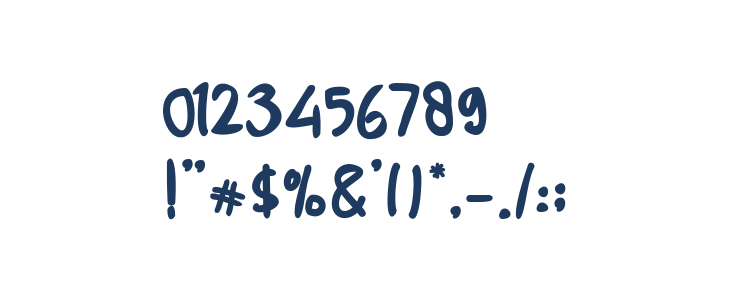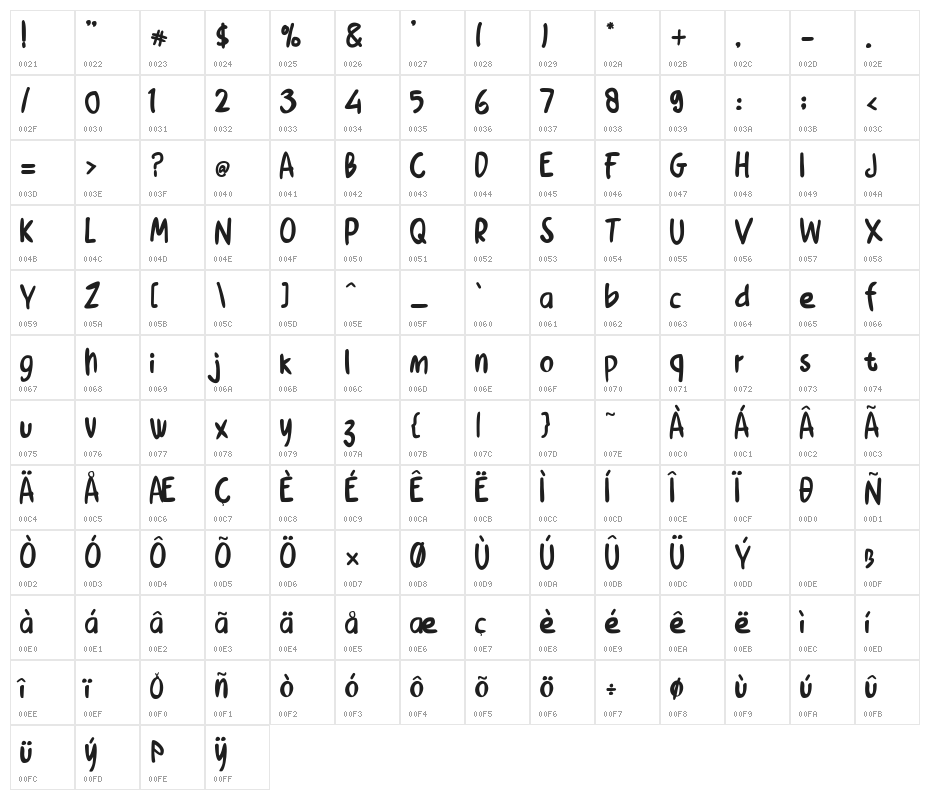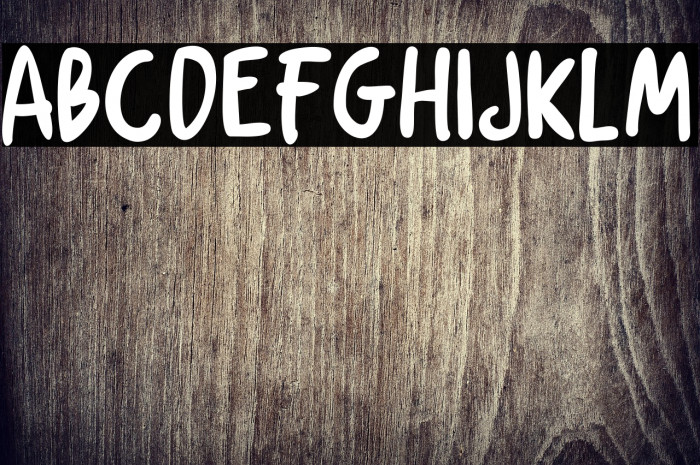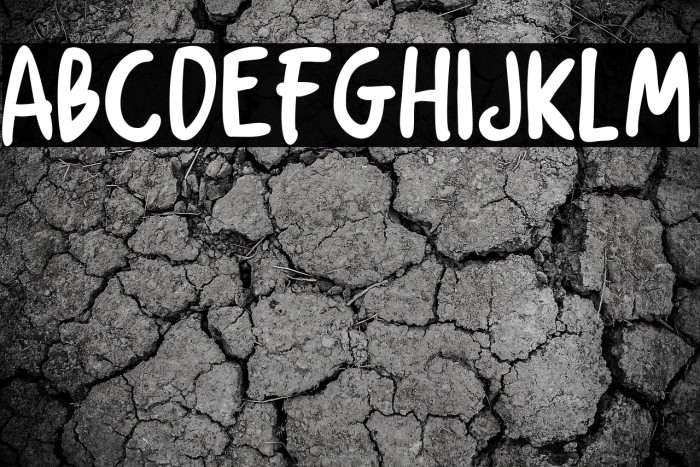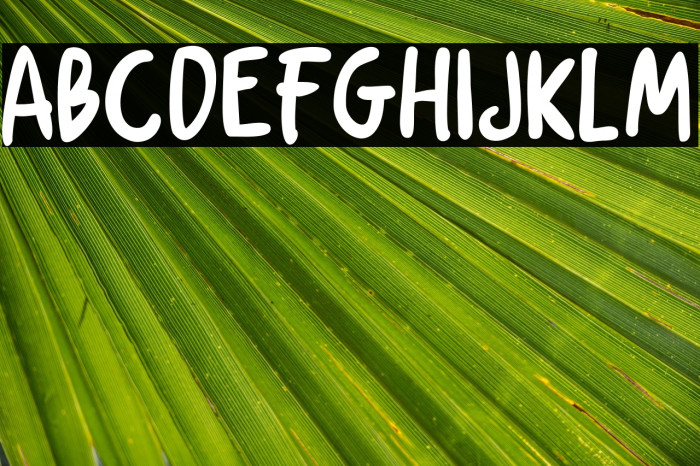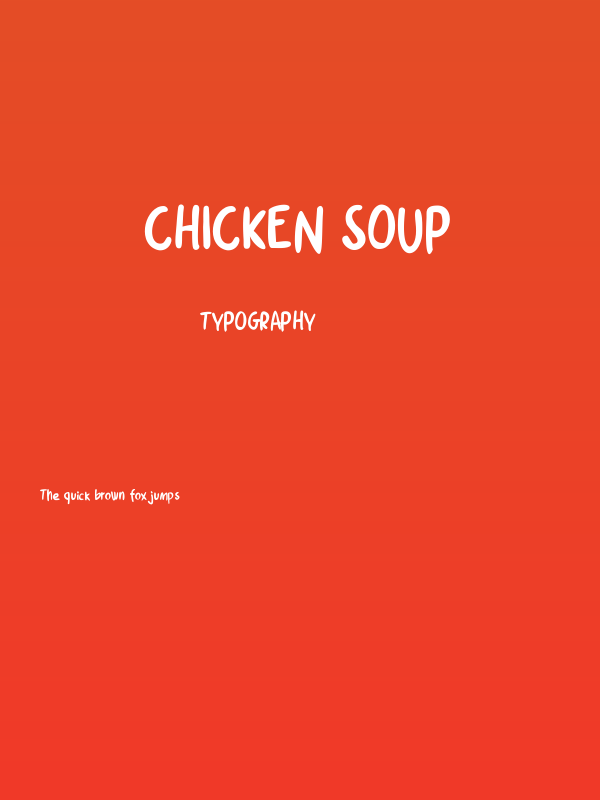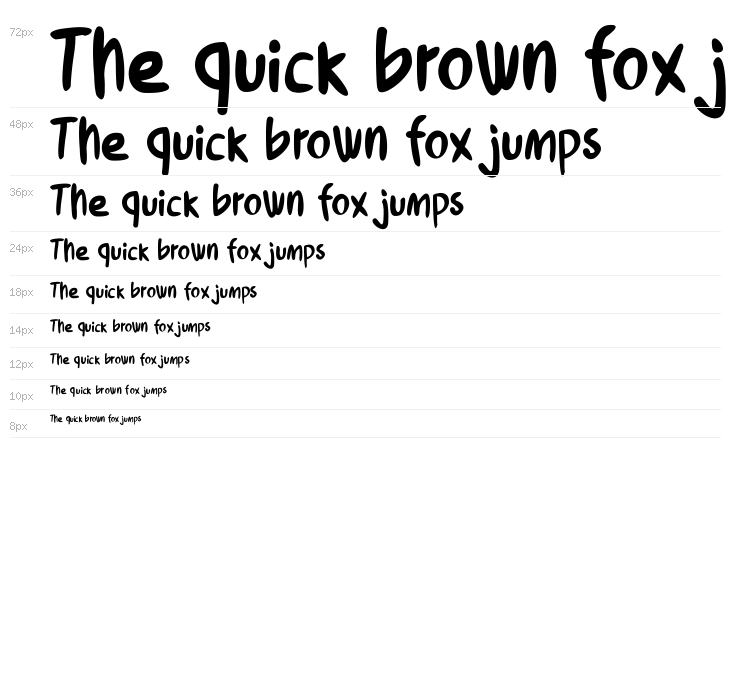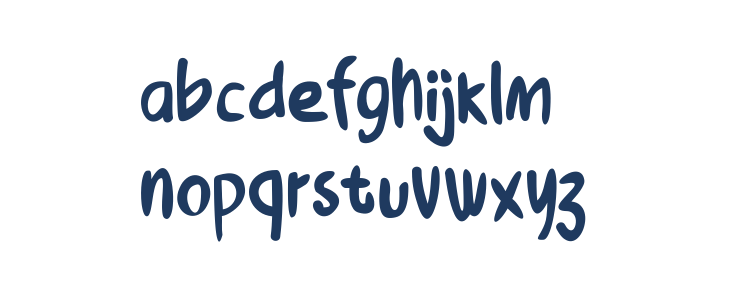
Chicken Soup Font
Chicken Soup Description
This playful and whimsical font features a handwritten style with bold, rounded strokes. The characters are slightly irregular, giving it a casual and friendly appearance. The uppercase and lowercase letters maintain a consistent style, with a slight slant that adds to its informal charm. The numbers and special characters are equally playful, making this font suitable for creative and fun projects. Its boldness ensures readability while the unique character shapes add personality.
| Proposed Projects | Ideal for children's books, greeting cards, playful branding, and social media graphics. |